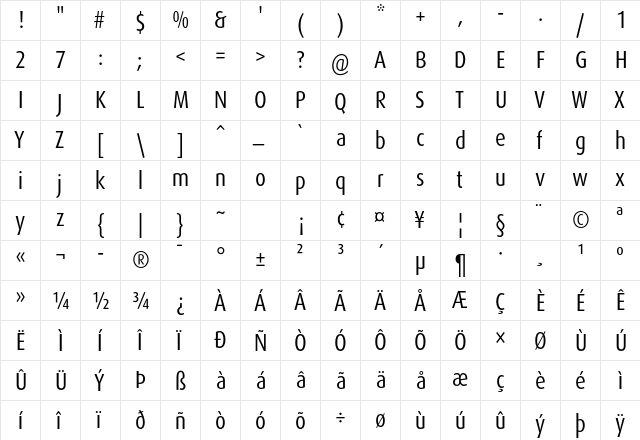
DaxOT CondRegular
| Foundry | FSI Fonts und Software GmbH |
| Designer | Hans Reichel |
Design Context for DaxOT Typeface
DaxOT offers clean, dependable letterforms without strong stylistic allegiance, making it a practical choice for designers who need flexibility. Its narrow stance lets it pack a punch even in space-constrained designs.